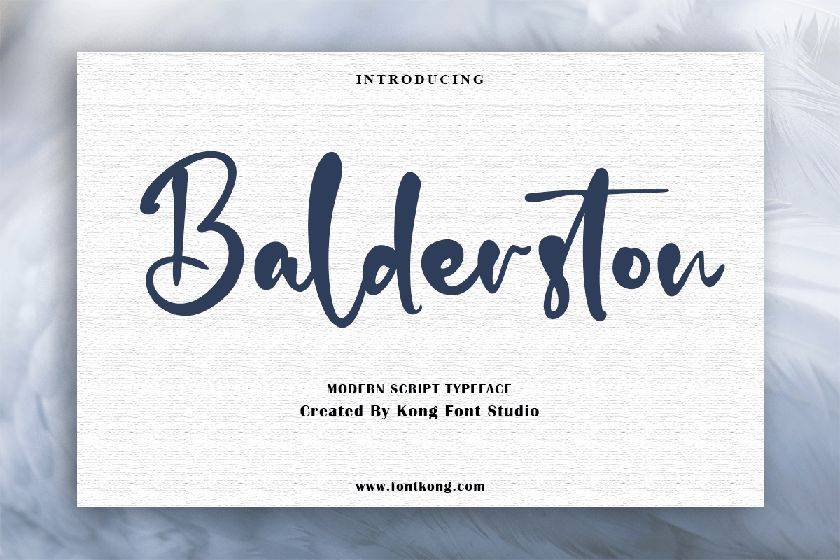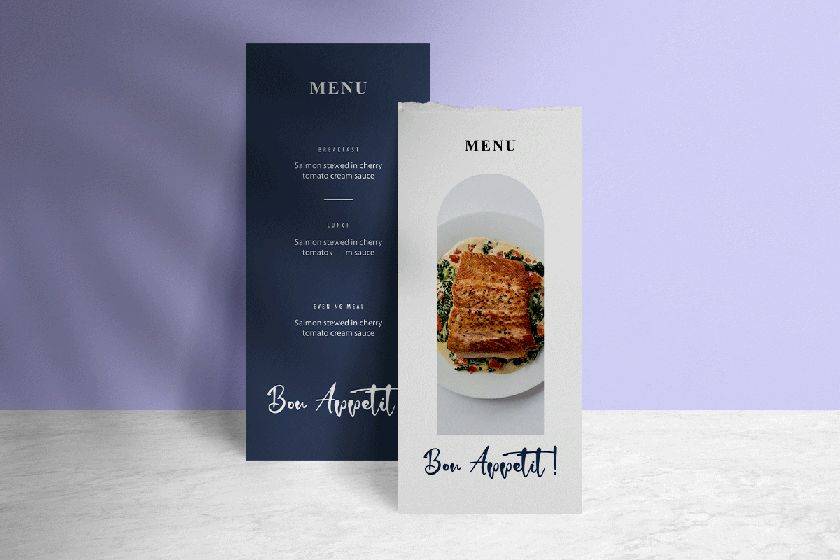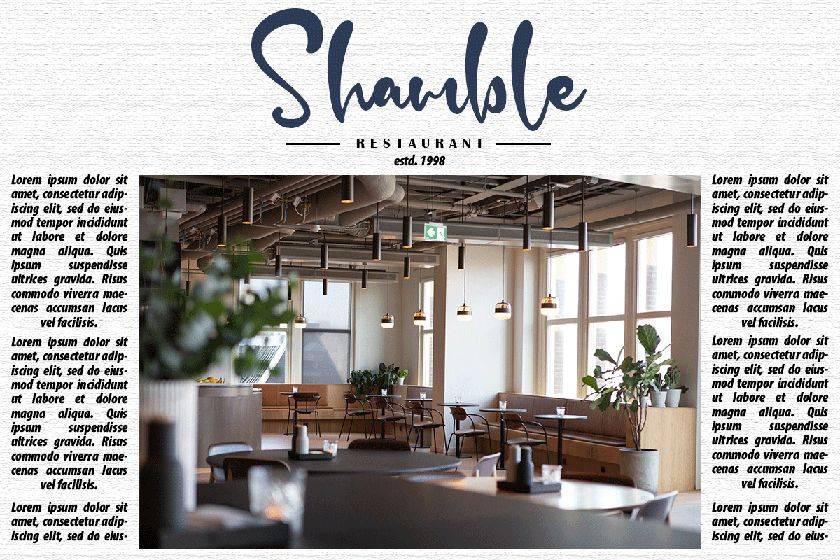
Balderston is a lively script font featuring flowing, hand-drawn letterforms with a friendly and artistic feel. Its varied stroke widths and casual, slightly irregular shapes make it perfect for adding a personal, creative touch to invitations, branding, or packaging. This font shines in designs that want to convey warmth, charm, and individuality with a modern handwritten style.
Balderston Font
About Balderston Font